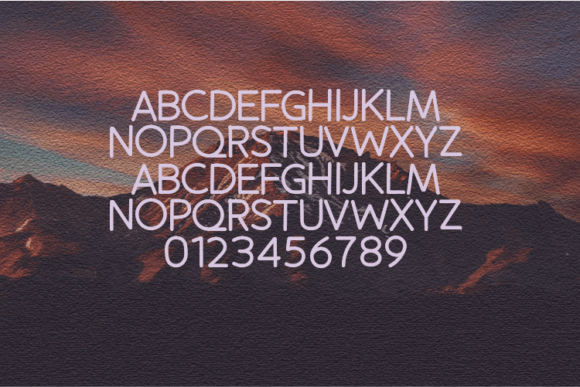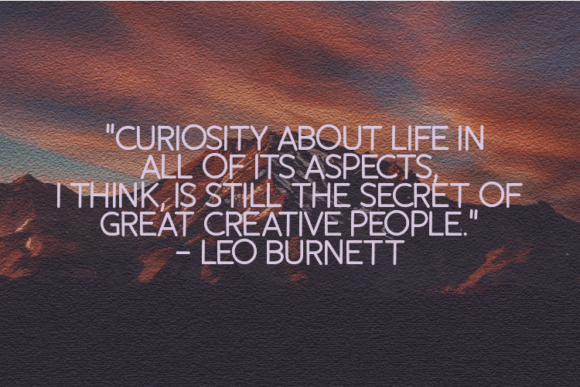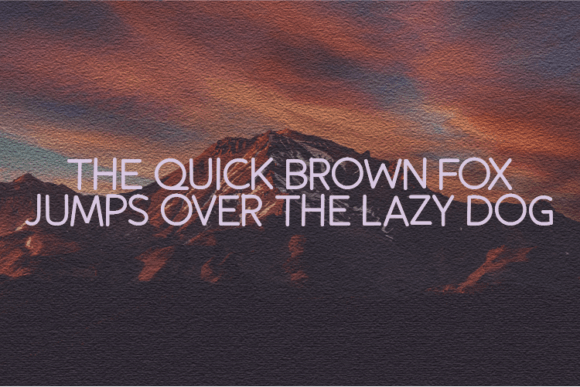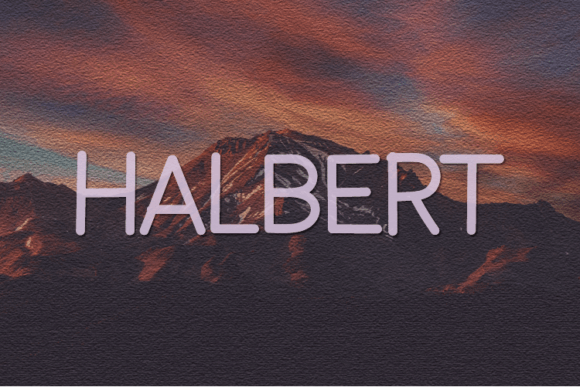
Discover the Unique Charm of Halbert Font: A Natural Sans Serif for Creative Designs
In the world of typography, fonts play a crucial role in conveying messages, expressing emotions, and creating visual identities. For designers and crafters, finding the perfect font can be a daunting task, especially when looking for something that stands out from the crowd. This is where Halbert Font comes into play – a natural sans serif font that has been gaining attention for its distinctive and refreshing style.
The Story Behind Halbert Font
Halbert Font is a sans serif font that has been crafted with a unique approach. Unlike traditional fonts, Halbert’s design is based on a fascinating concept – it is made without changing a single node in each character’s indentation. This approach gives Halbert its natural and organic feel, setting it apart from other fonts in the sans serif category.
The creator of Halbert Font aimed to produce a typeface that not only looks modern and clean but also retains a touch of human-like imperfections. This makes Halbert incredibly versatile and suitable for a wide range of design applications, from quotes and notes to tees and product design.
Key Features of Halbert Font
- Natural and Organic: Halbert’s unique design approach gives it a natural, hand-crafted feel that resonates with audiences.
- Versatile: Suitable for various design projects, including quotes, notes, tees, and product design.
- Modern and Clean: Halbert’s sans serif style ensures that your designs look contemporary and sleek.
- Unique Indentation: The unchanged node indentation in each character gives Halbert its distinctive charm.
Why Choose Halbert Font?
For designers and crafters looking for a font that can add a personal touch to their work, Halbert Font is an excellent choice. Its unique style ensures that your designs stand out, whether you’re working on a branding project, creating merchandise, or designing quotes and notes.
Moreover, Halbert’s versatility means it can be used across various mediums, from digital platforms to print materials. Its clean and modern aesthetic ensures that your message is conveyed clearly, while its organic feel adds a layer of warmth and approachability.
Using Halbert Font in Your Designs
- Quotes and Notes: Add a personal touch to your quotes and notes with Halbert’s unique style.
- T-Shirts and Merchandise: Create eye-catching and memorable designs for tees and other merchandise.
- Product Design: Use Halbert to create labels, packaging, and other product materials that stand out.
- Digital Content: Enhance your blog posts, social media graphics, and website content with Halbert’s modern and clean aesthetic.
Halbert Font is a refreshing addition to the world of typography. Its unique design, based on unchanged node indentation, gives it a natural and organic feel that is hard to find in traditional fonts. For designers and crafters looking for a versatile and distinctive sans serif font, Halbert is an excellent choice. Whether you’re working on quotes, notes, tees, or product design, Halbert Font can help you create visually appealing and memorable designs.
Explore the creative possibilities with Halbert Font and discover how this natural sans serif font can elevate your designs to the next level.